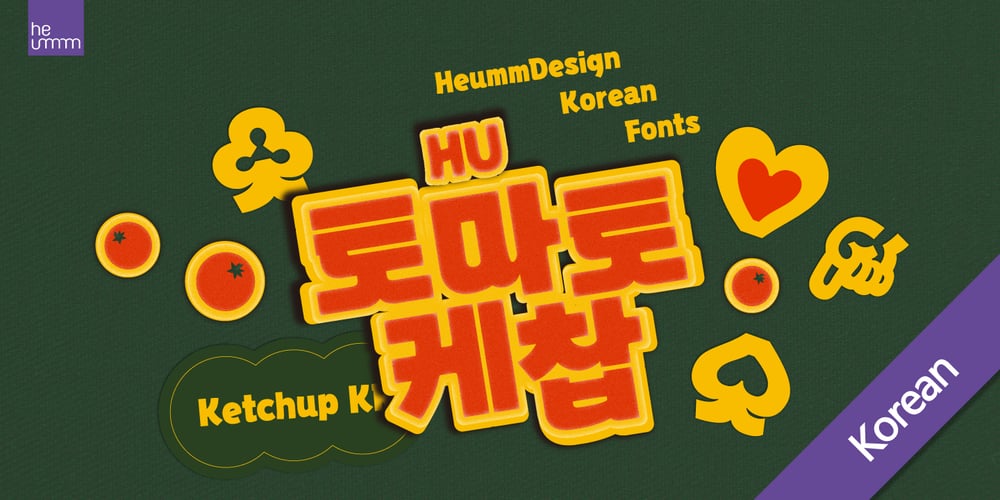
HU Ketchup KR
HU Ketchup KR font
HU Ketchup KR Font Family was designed by Haerin Lee, Yehyeong Lee and published by Heummdesign. HU Ketchup KR contains 2 styles and family package options. In HU Ketchup KR, the consonant and vowel strokes are naturally connected to add writing power to the thick headline, and the vowels are shaped like ‘ㅅ’, adding personality and cuteness at the same time.